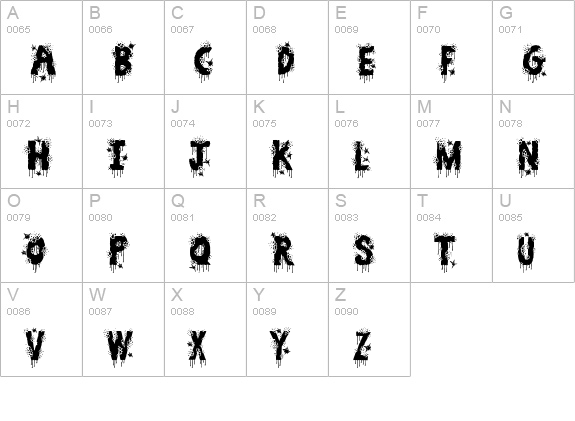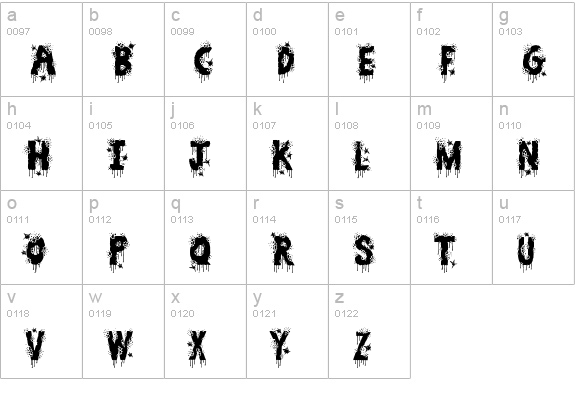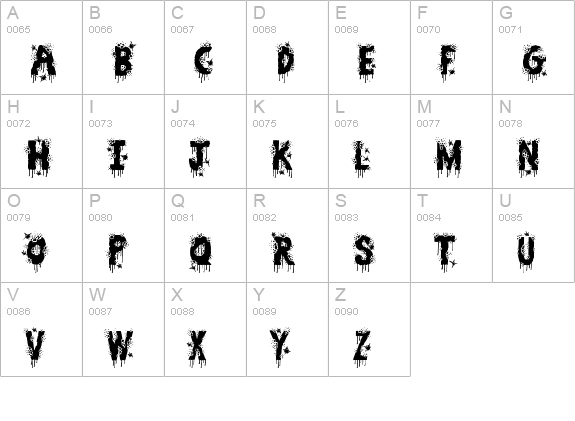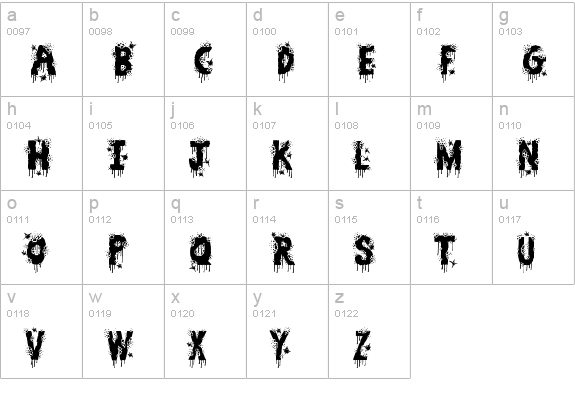
Bullet Holes Font Details
Bullet Holes font is a striking and gritty typeface that is sure to make a bold statement in any design project. This edgy font features letters that have been meticulously designed to resemble bullet holes, giving it a unique and rugged appearance. With its rough and weathered texture, Bullet Holes font is perfect for adding a touch of rebellion and urban aesthetic to your designs. Whether you're creating a poster for a rock concert, designing a tattoo, or making a gritty movie title sequence, this font will add an authentic and eye-catching element to your work. The best part? Bullet Holes font is completely free to download at FontsMarket.com. That's right, you can unleash your creativity and incorporate this distinctive font into your designs without any cost. It's a great opportunity to add a touch of edginess to your projects without breaking the bank. So why wait? Go ahead and download Bullet Holes font today and let your imagination run wild. Whether you're a graphic designer, a tattoo artist, or simply someone looking to add a bit of rebellious flair to your personal projects, this font is a must-have. Don't miss out on the chance to make a powerful statement with your typography – grab Bullet Holes font now and elevate your designs to a whole new level.